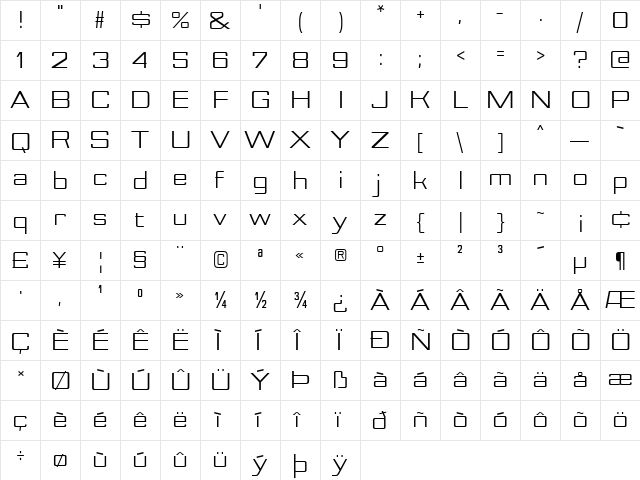
Nesobrite Semi-Expanded Font Preview
Nesobrite Semi-Expanded
Design Context for Nesobrite Typeface
Nesobrite is a composed and adaptable typeface that performs quietly and consistently across a wide range of design contexts.